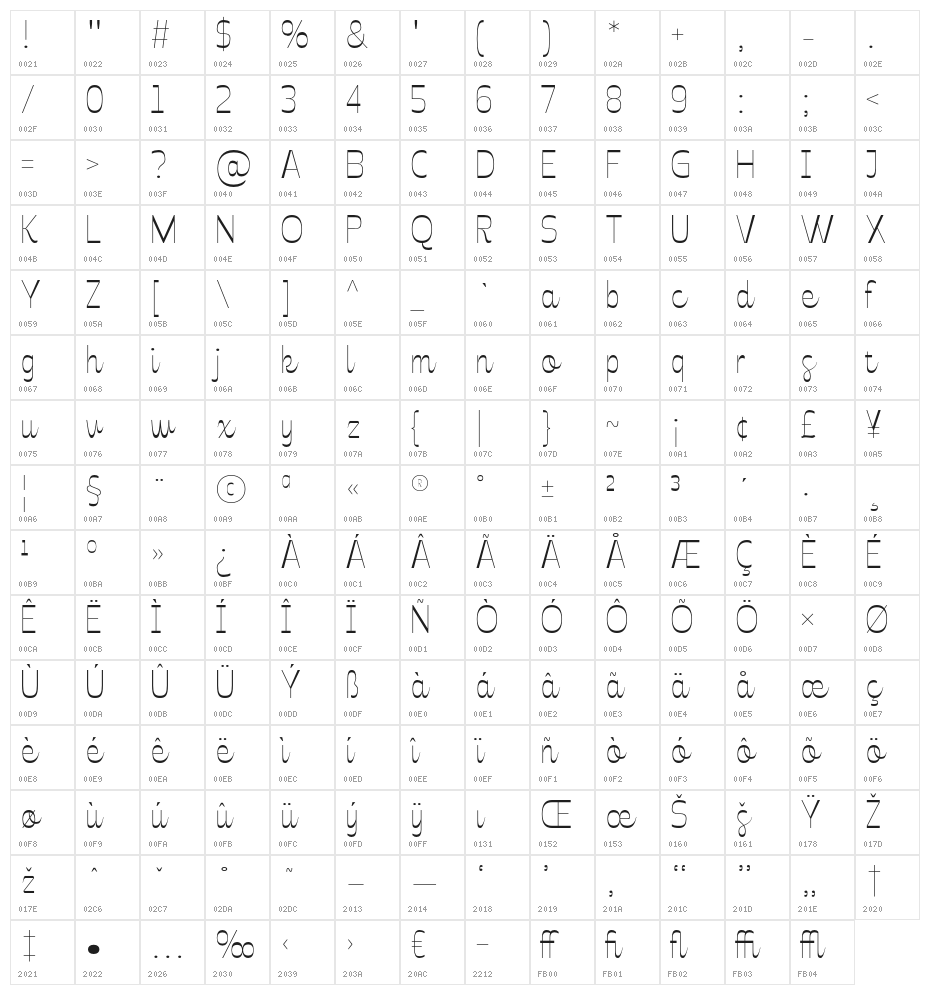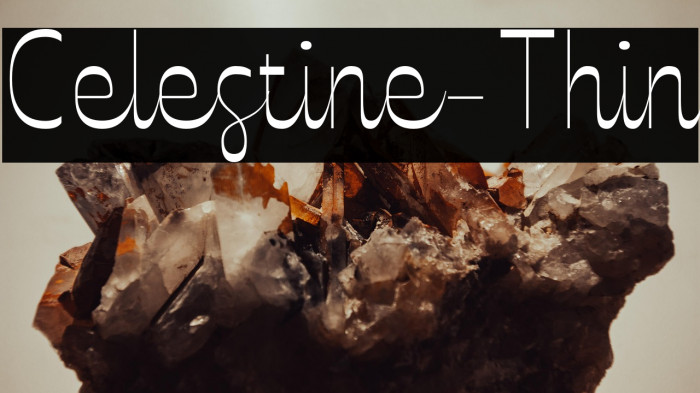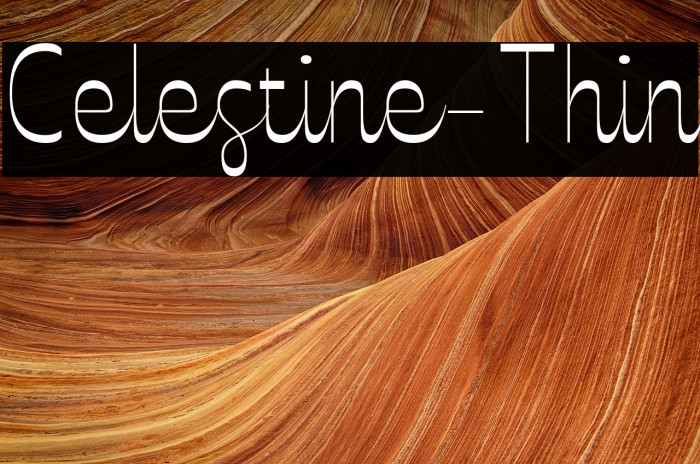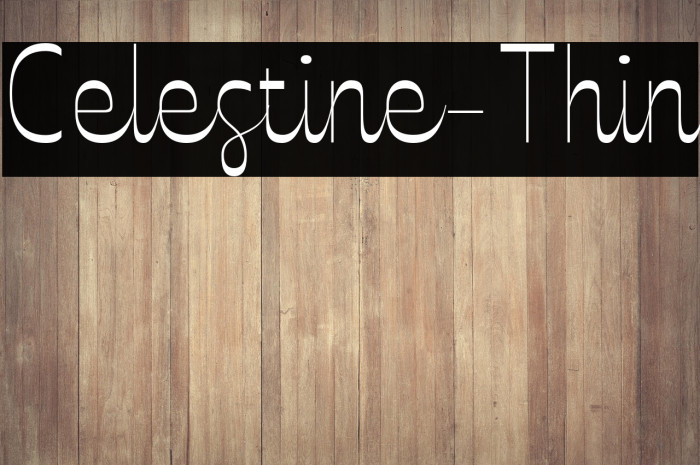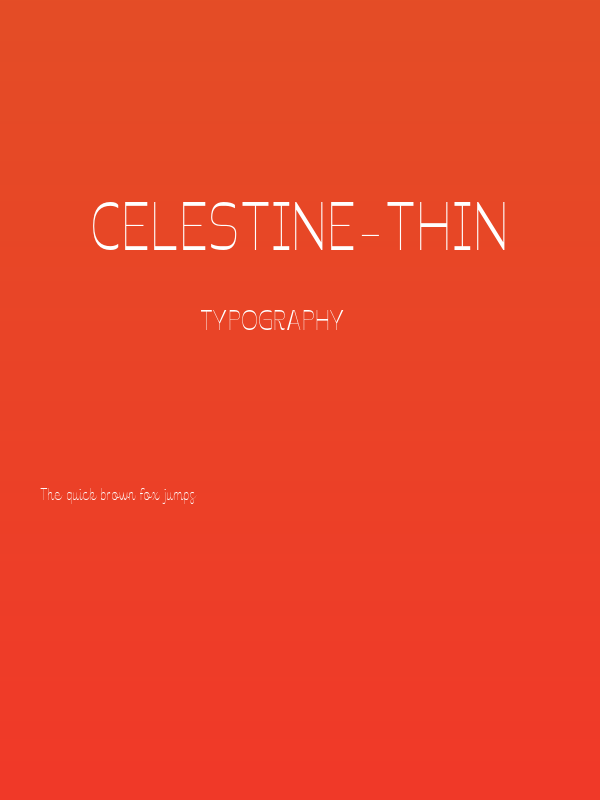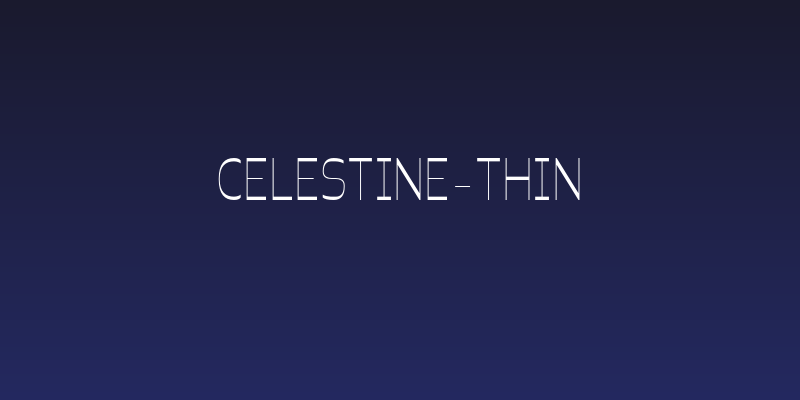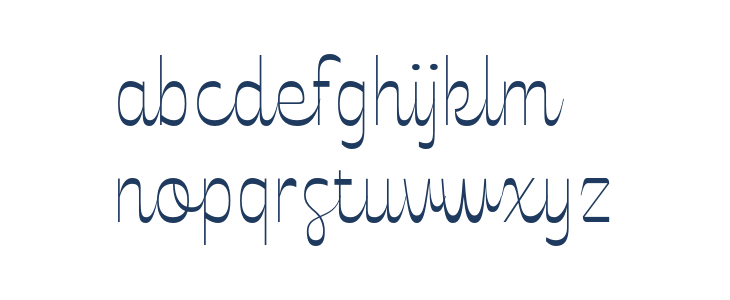
Celestine-Thin Font
Celestine-Thin Description
This font features a sleek and modern design with thin, elegant lines that give it a refined and sophisticated appearance. The uppercase letters are clean and geometric, while the lowercase letters introduce a subtle curvature, adding a touch of softness to the overall aesthetic. The numerals are consistent with the font's minimalist style, offering clear readability. Special characters are well-integrated, maintaining the font's cohesive look. The thin strokes and open spacing make it ideal for projects that require a contemporary and airy feel.